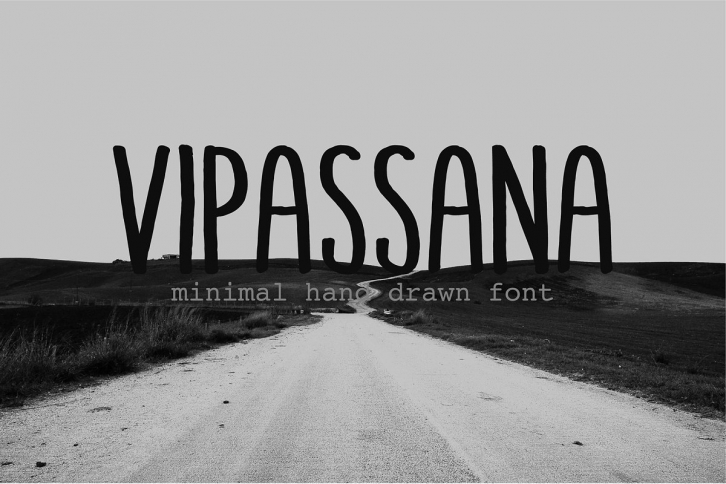
VIPASSANA, designed by Katya Yatsres, is based on digitized hand drawing, combined with OpenType features such as uppercase and lowercase letters, numerals, a large range of punctuation and ligatures
Typical areas of application for VIPASSANA are blog posts, books, documents and editorial design, as well as personalized mailings and the entire spectrum of below-the-line marketing: ambient media, direct marketing, lotteries, flyers.